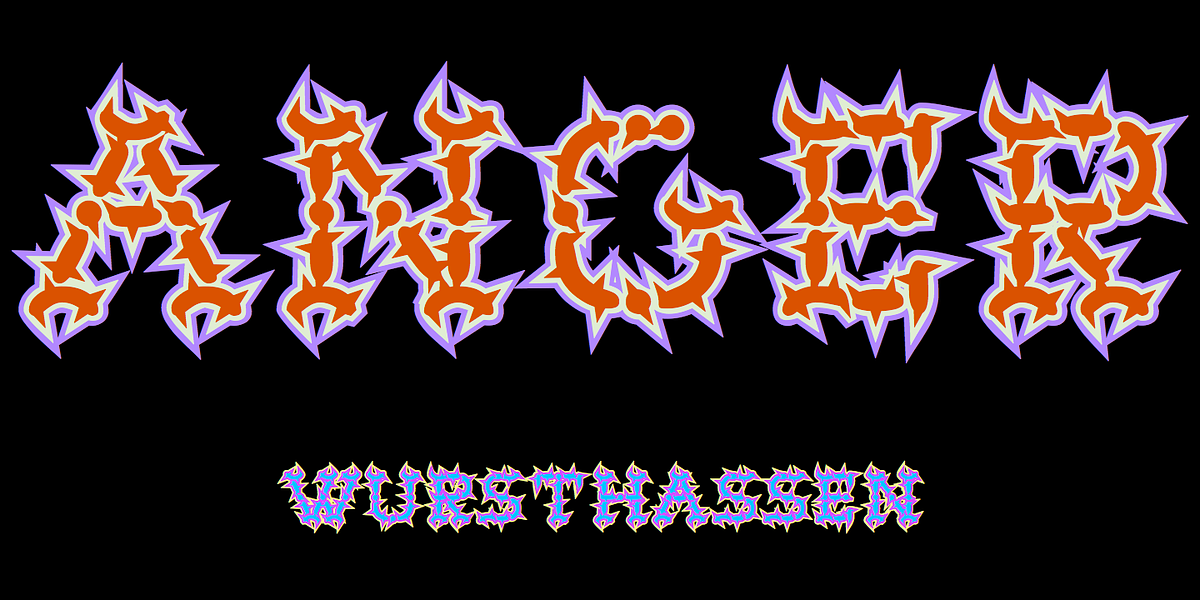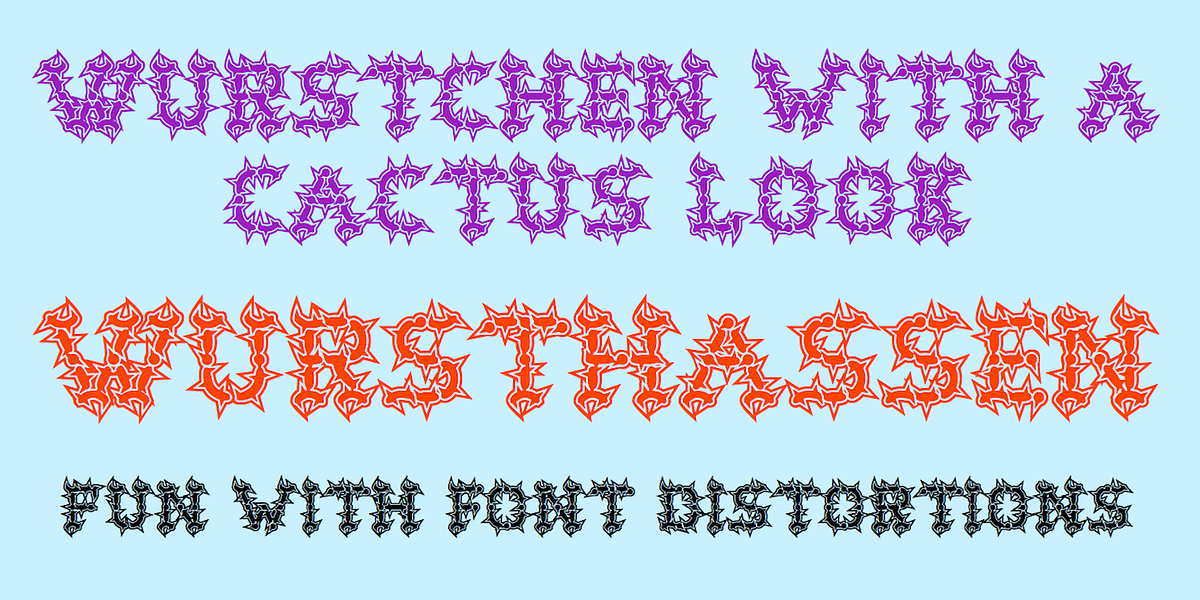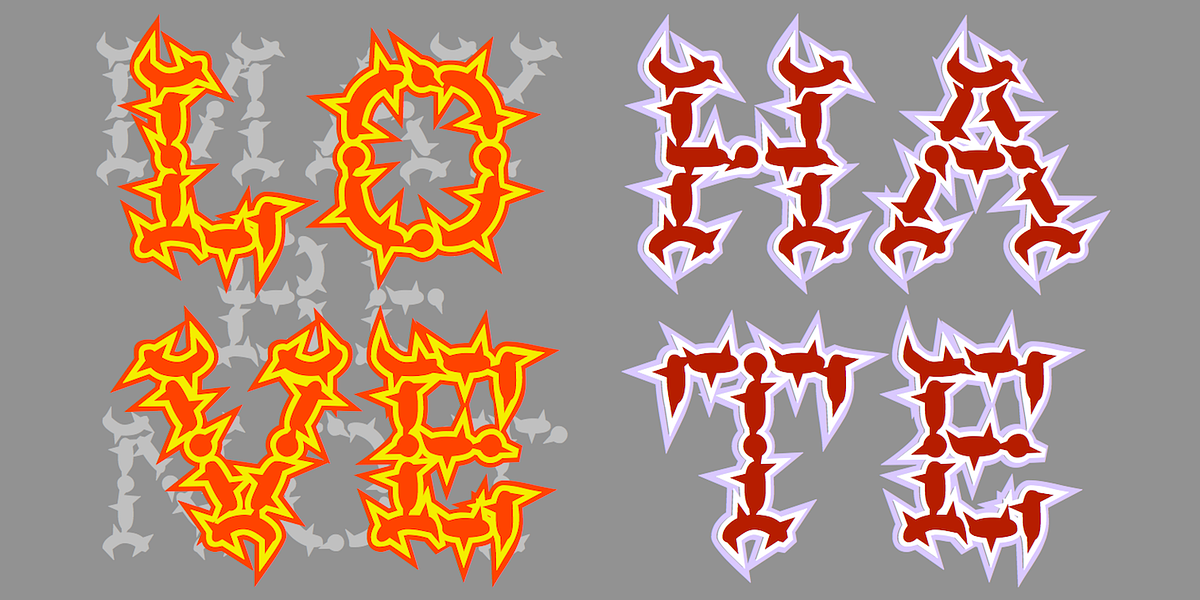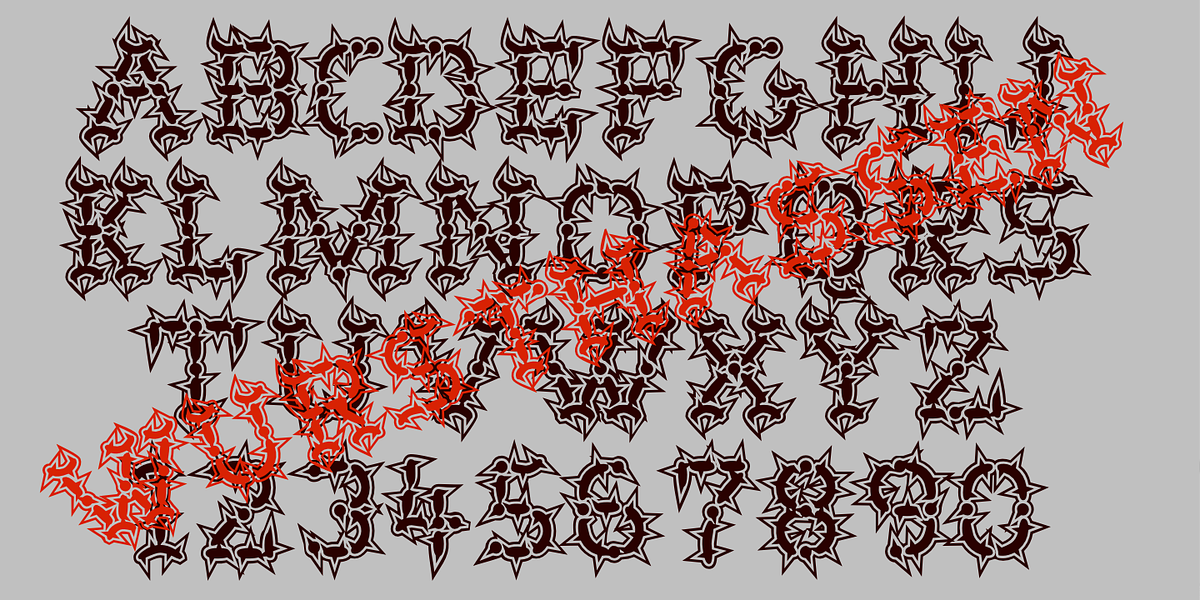
WurstHassen
WurstHassen is a caps-only typeface designed to evoke feelings of anger and violence. Its rough, inline style can be used alone or combined with overlay styles for a bi-colored or tri-colored effect.